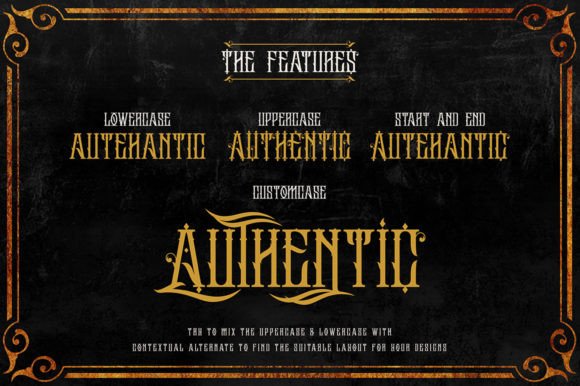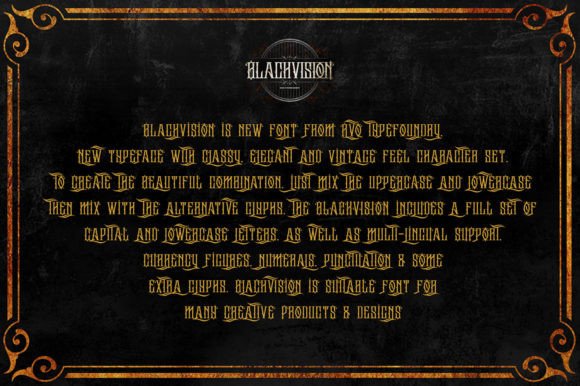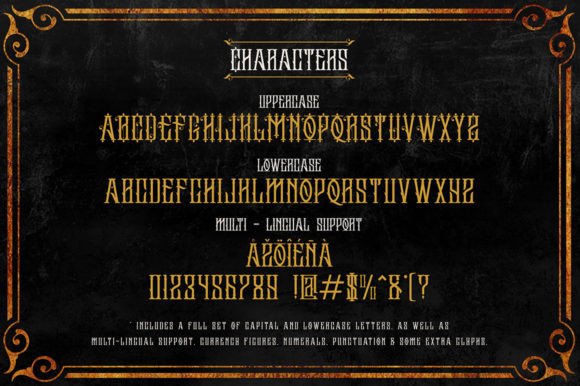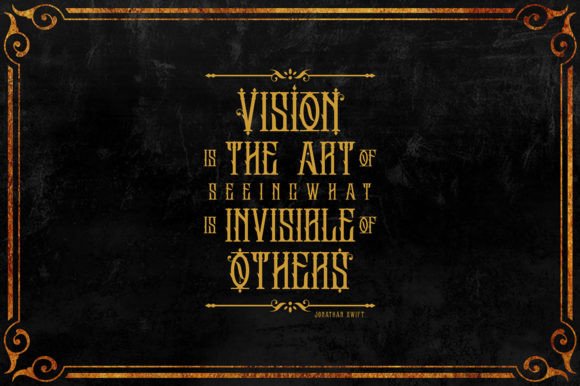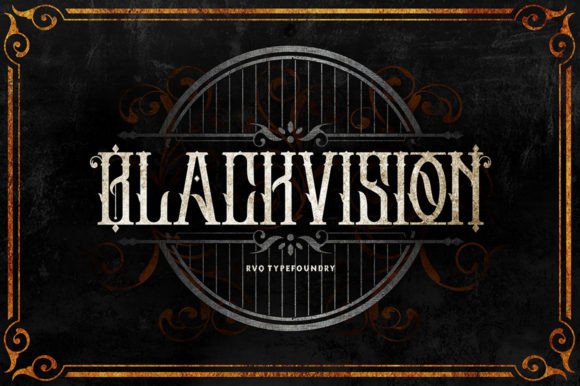
The Power of Black Vision: A Bold Blackletter Font to Elevate Your Designs
I’ll never forget the time I was working on a project for a client who wanted a bold, attention-grabbing font to convey a sense of drama and luxury. I scoured the internet for hours, trying out font after font, but nothing seemed quite right. That was until I stumbled upon Black Vision, a bold blackletter font that completely transformed my design. In this article, I’ll share my experience with Black Vision, its features, and how to make the most of it in your designs.
My Honest Review of Black Vision
So, what do I love about Black Vision? Here are a few things that make it stand out:
- ✨ Heavy strokes: Black Vision’s bold, heavy strokes make it perfect for creating eye-catching designs that demand attention.
- ✅ Distinctive letterforms: The font’s old-style letterforms have a unique, nostalgic feel that’s sure to add character to your designs.
- 💯 Versatility: Despite its bold nature, Black Vision can be used for a wide range of projects, from luxury branding to event invitations.
Of course, no font is perfect, and Black Vision has a few quirks to be aware of:
- 🤔 Limited legibility at small sizes: Due to its bold nature, Black Vision can be difficult to read at small font sizes. Be sure to use it at larger sizes or for headlines and titles.
- ⚠️ Limited suitability for body text: While Black Vision is perfect for headlines and titles, it’s not the best choice for body text. Its bold nature can be overwhelming for longer blocks of text.
The Story Behind Black Vision
Black Vision was designed by a team of typographers who wanted to create a bold and dramatic font that would capture the essence of traditional blackletter typography. Inspired by medieval manuscripts and Gothic architecture, Black Vision is a modern take on a classic style.
| Author | Rvq Type Foundry |
- Q: What is Black Vision?
- A: Black Vision is a bold blackletter font designed for creating dramatic and eye-catching designs.
- Q: Is Black Vision suitable for body text?
- A: No, Black Vision is best suited for headlines and titles. Its bold nature can be overwhelming for longer blocks of text.